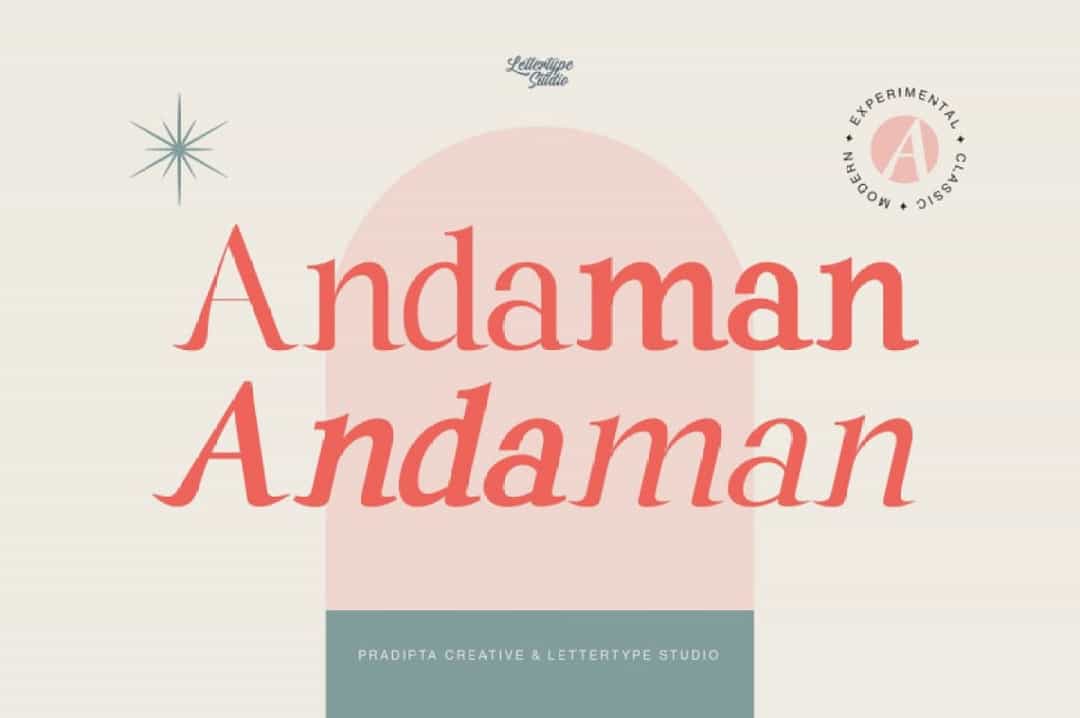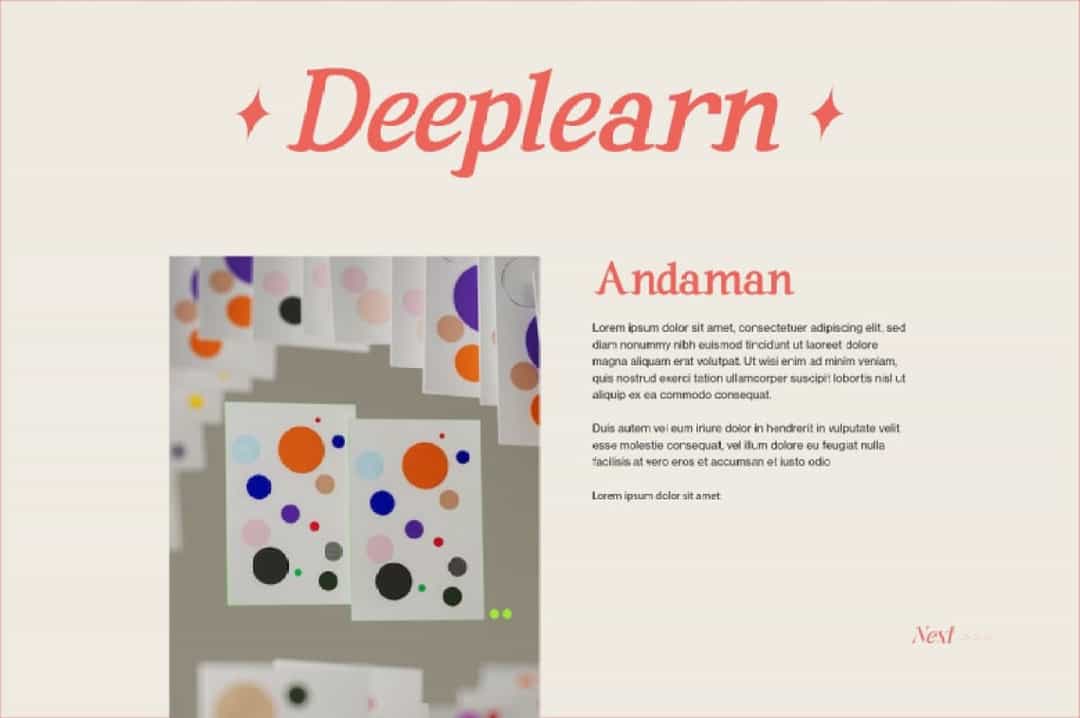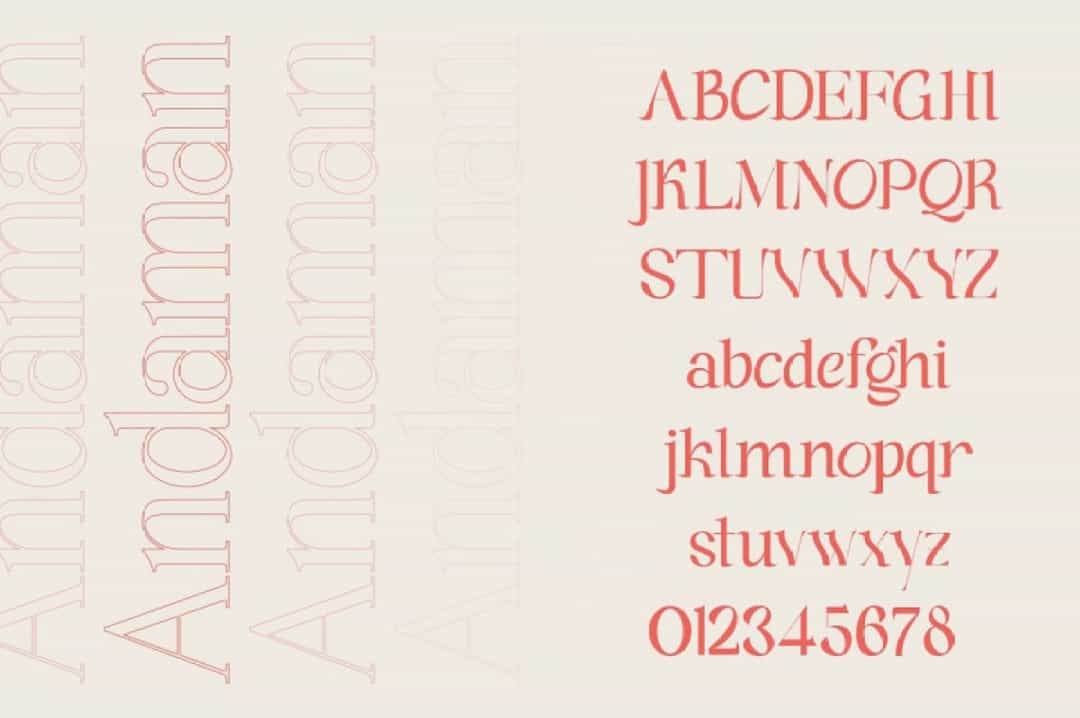
“Andaman”, our modern and innovative serif typeface, can bring life and sophistication to your logo design or branding project – perfect for clothing signs, posters and wedding invitations; clothing or cosmetics advertising and many more uses! Plus it gives your project or brand both classic and contemporary qualities simultaneously!